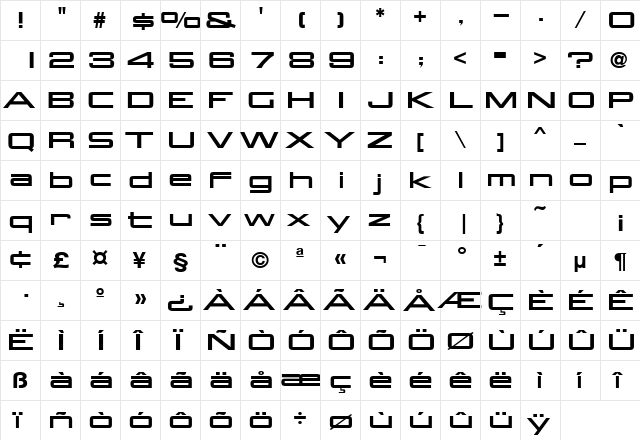
TR Normal Font Preview
TR Normal
Design Context for TR Typeface
TR offers clean, dependable letterforms without strong stylistic allegiance, making it a practical choice for designers who need flexibility.
Pro Tip: Pair TR with a font of contrasting weight or personality to build a more expressive typographic hierarchy.